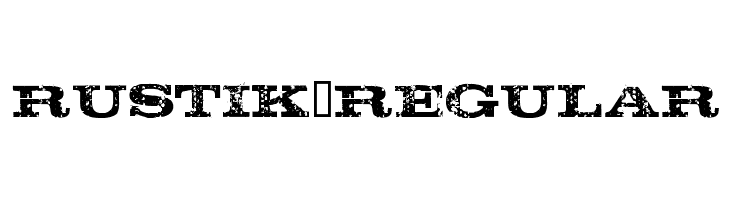
A distressed serif font with a fragmented, aged appearance.
A bold, distressed font with a rugged, industrial appearance.
A distressed, grunge-style font with a textured, weathered appearance.
A distressed, textured font with a rugged, vintage feel.
A bold, distressed font with a grunge texture and rugged appearance.
A bold, distressed font with a rugged, industrial aesthetic.